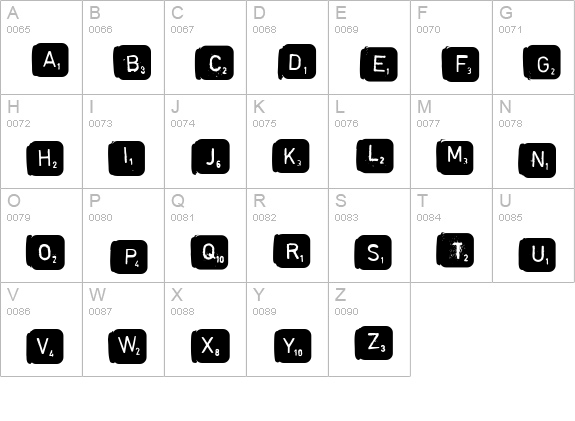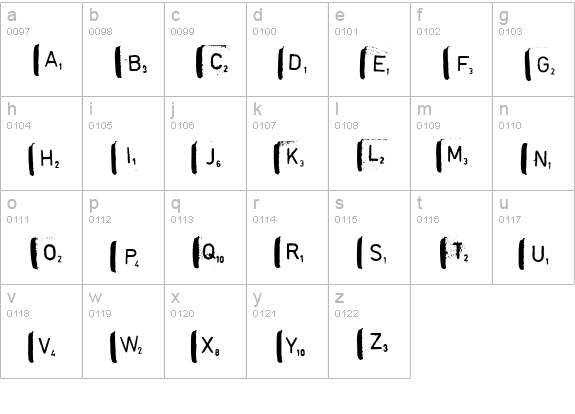
scrabble Font Details
The Scrabble font is a captivating typeface that brings the excitement of the classic word game straight to your design projects. With its bold and playful letterforms, this font captures the essence of Scrabble's vibrant and engaging nature. The Scrabble font is perfect for adding a touch of charm and nostalgia to any design, whether it's a poster for a game night, a personalized greeting card, or even a Scrabble-themed party invitation. What makes the Scrabble font even more appealing is that it is freely available to download at FontsMarket.com. This means that you can easily access and use this delightful typeface without any cost or restrictions. Whether you're a designer looking to add a unique element to your projects or simply a fan of the game wanting to incorporate its essence into your personal creations, the Scrabble font is an excellent choice. Featuring a wide range of uppercase and lowercase letters, as well as numbers and symbols, the Scrabble font offers versatility and flexibility in your designs. The letters themselves are beautifully crafted, with a playful yet legible design that is sure to catch the eye. The Scrabble font also includes special characters that mimic the iconic Scrabble tiles, adding an extra layer of authenticity to your designs. Whether you're creating a Scrabble-themed logo, a word game app interface, or even a crossword puzzle, the Scrabble font will undoubtedly elevate your design to the next level. Its unique charm and nostalgic appeal will resonate with both Scrabble enthusiasts and design aficionados alike. So why wait? Download the Scrabble font today, freely available at FontsMarket.com, and let your creativity soar as you bring the joy and excitement of the classic word game to your designs.